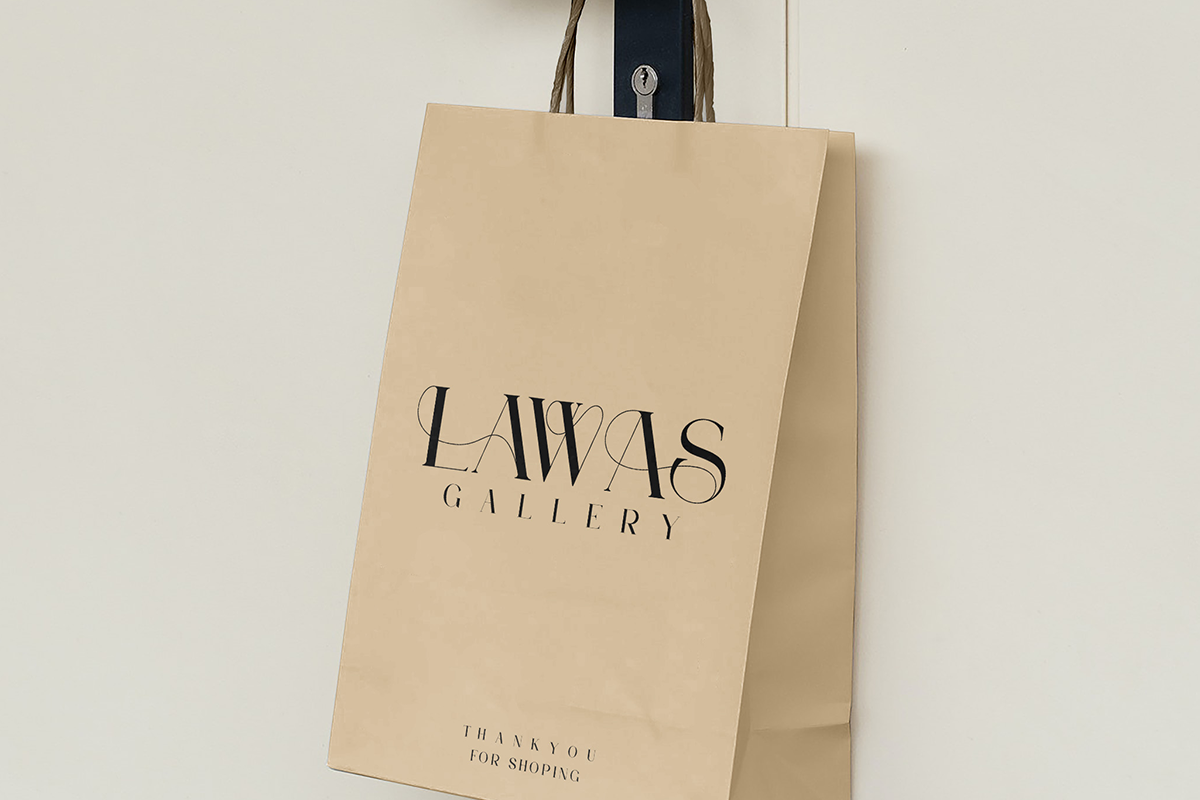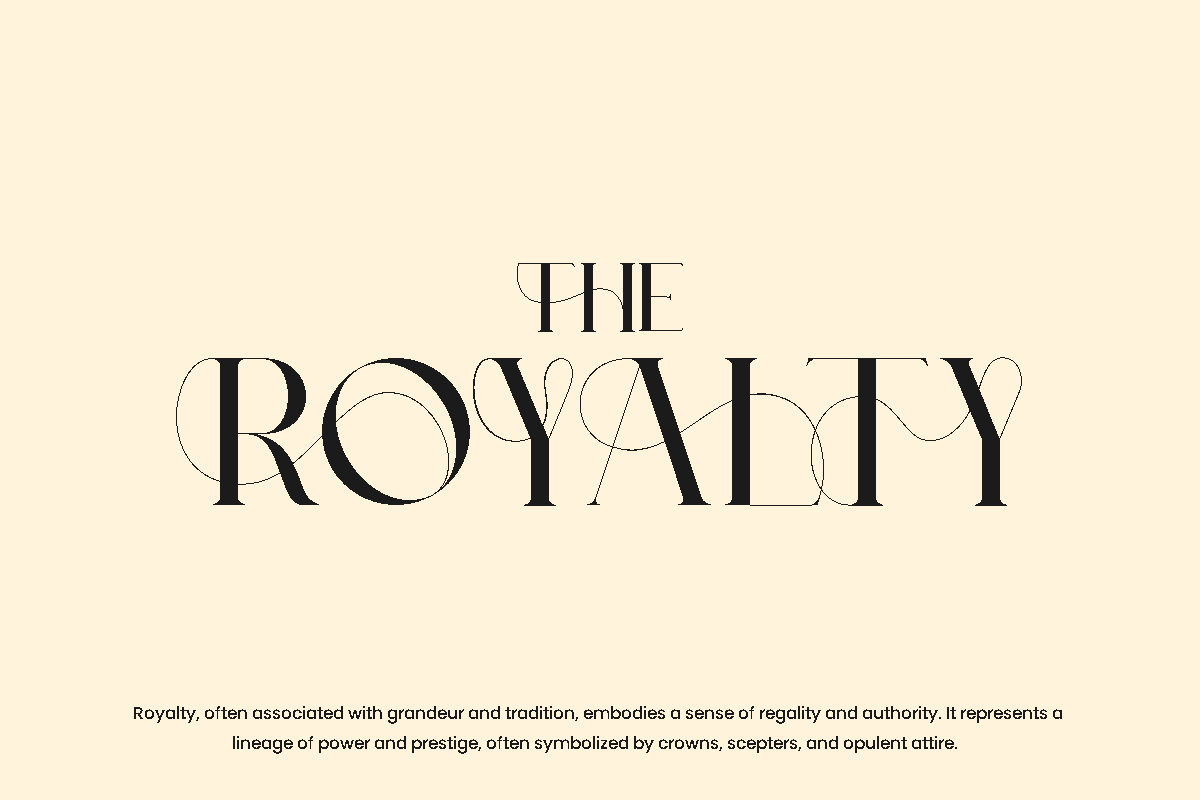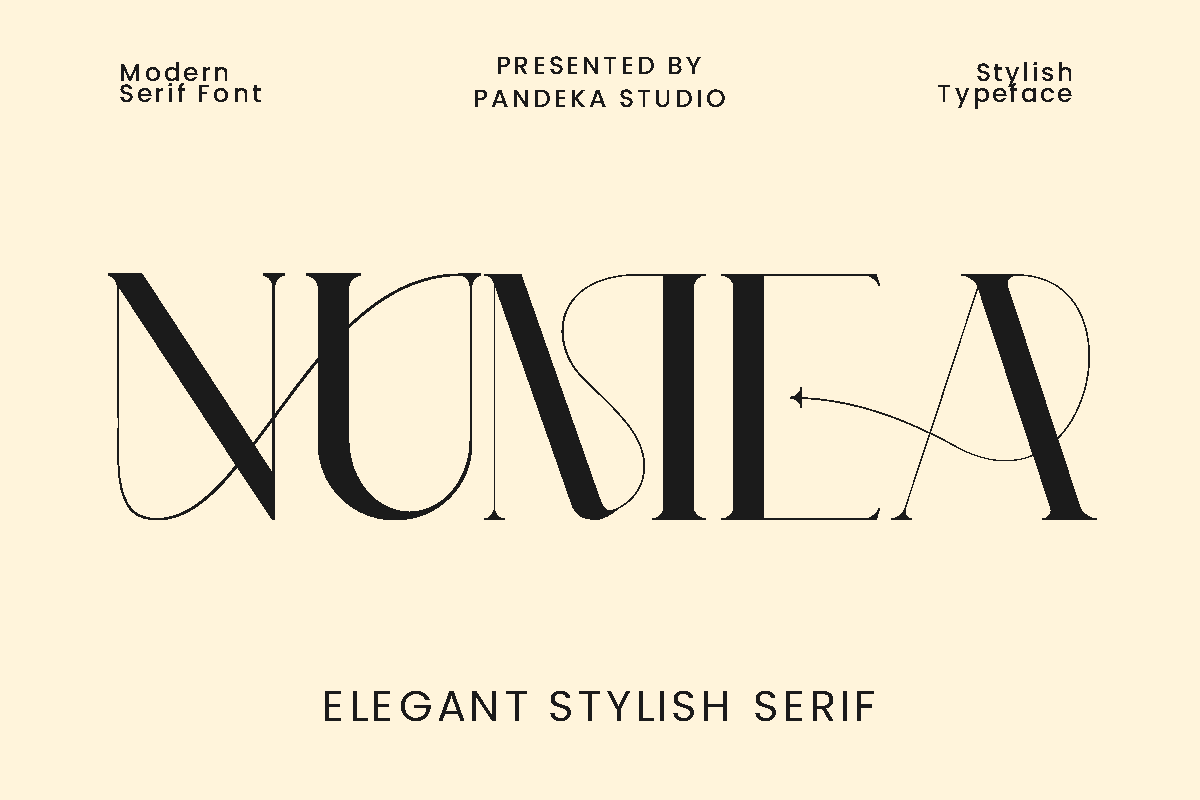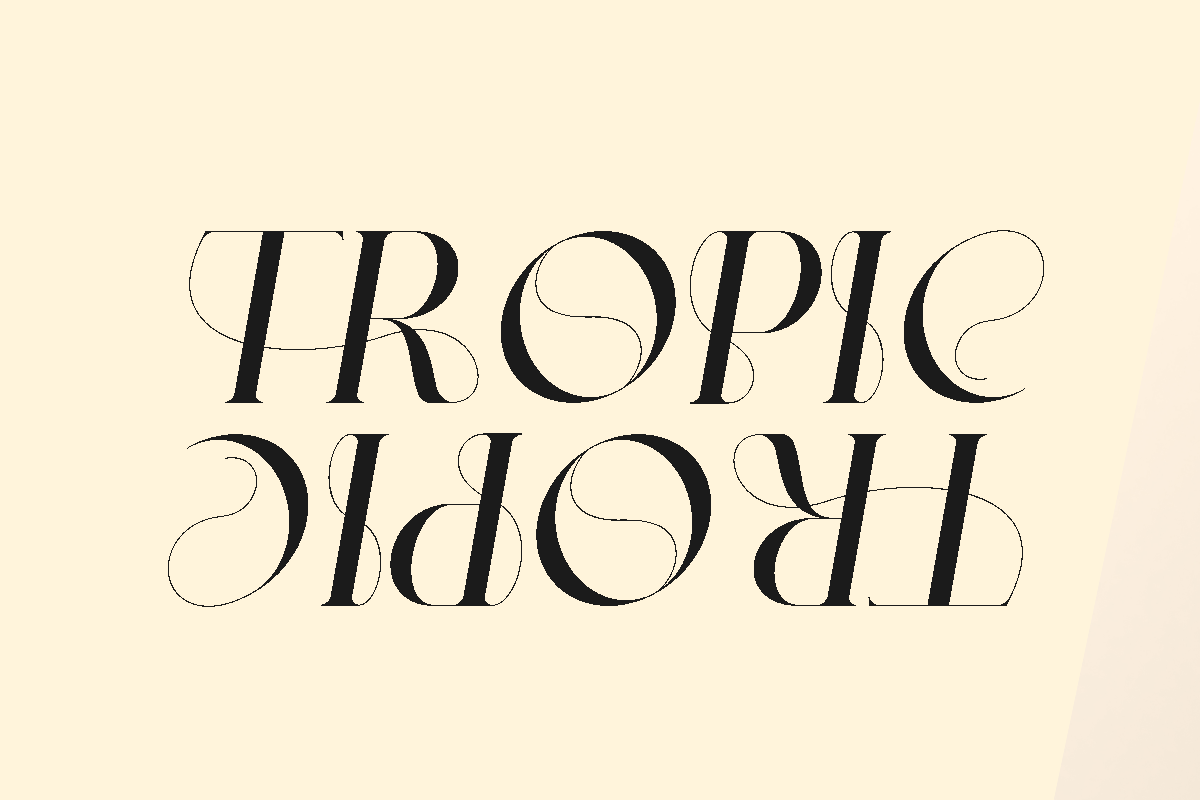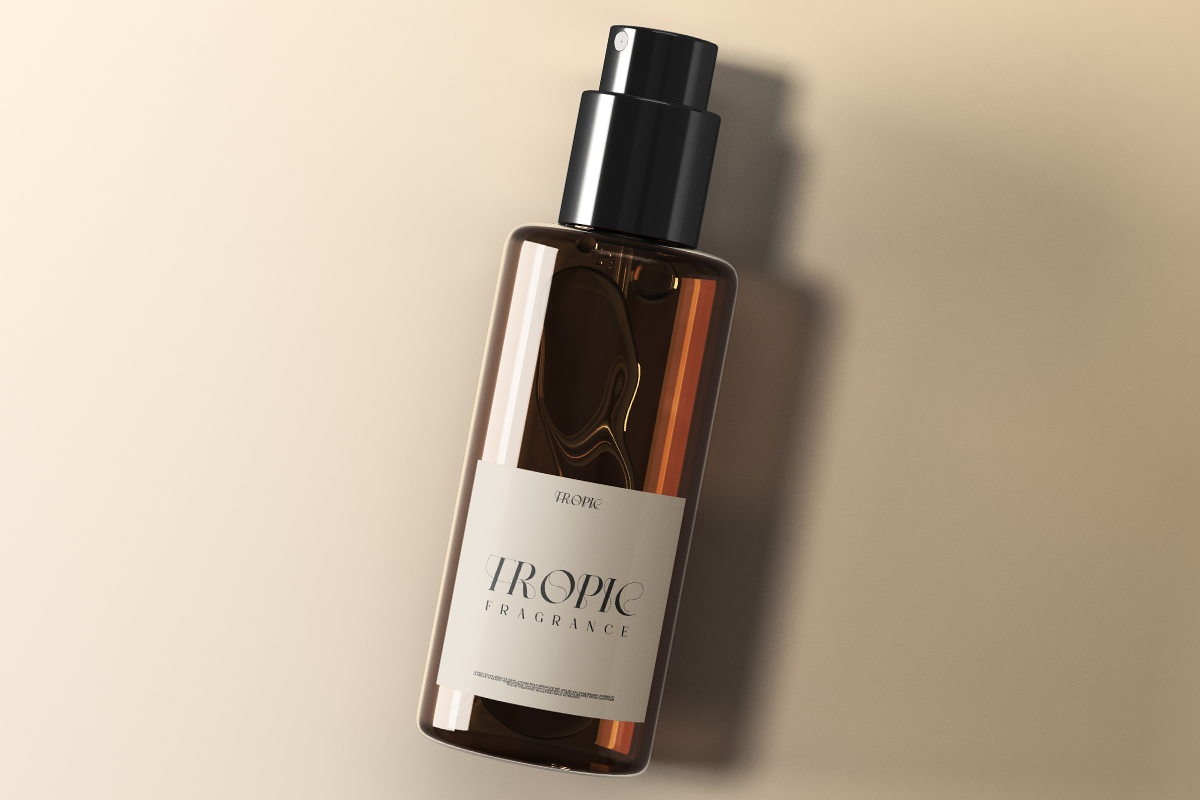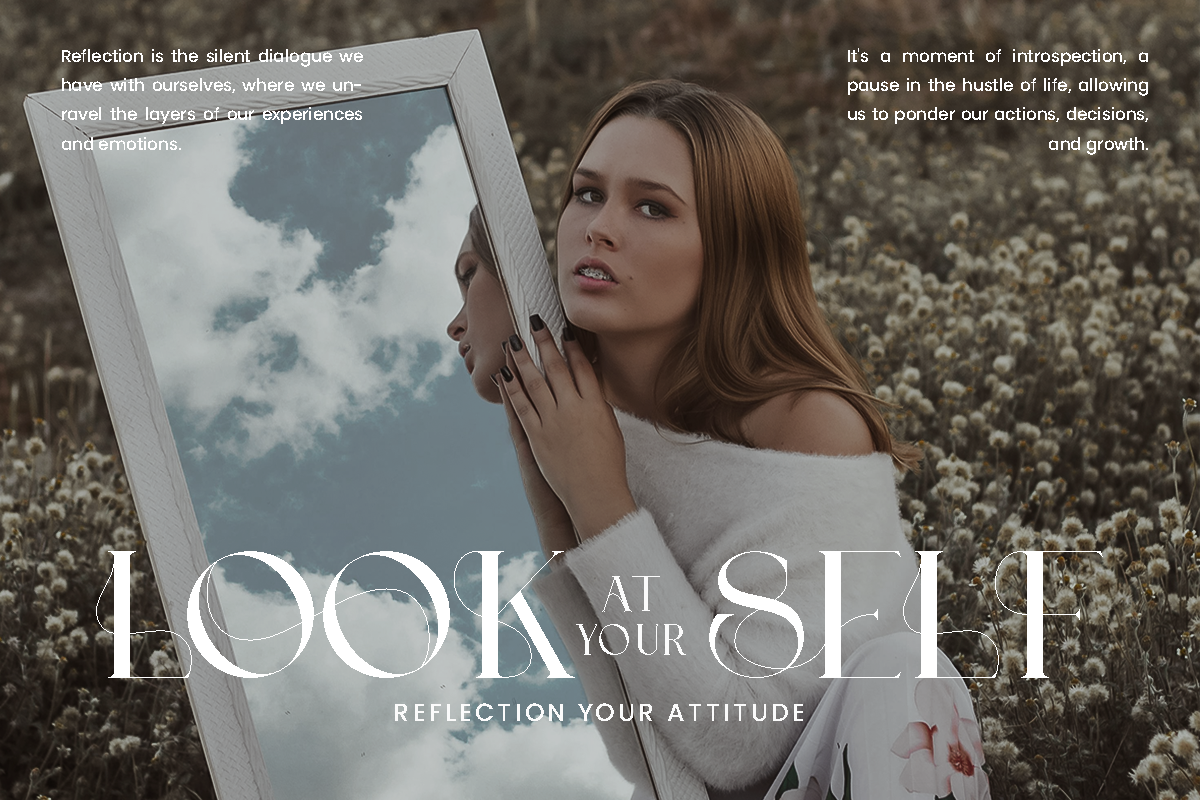
Numea - All Caps Elegant Font
Say hello to the new classic nineties retro font, Numea!
Numea - A classic nineties retro with a complementary italic version. With this font we make it different from the regular and make a shape with a unique uppercase so it looks more classic, retro but a little modern